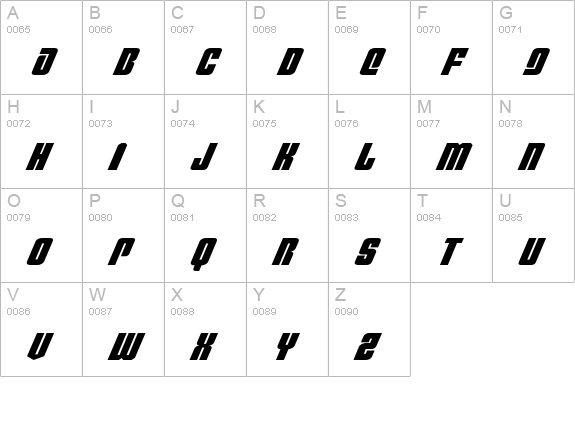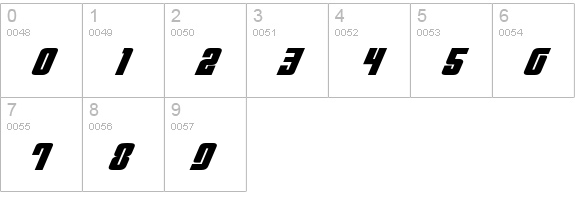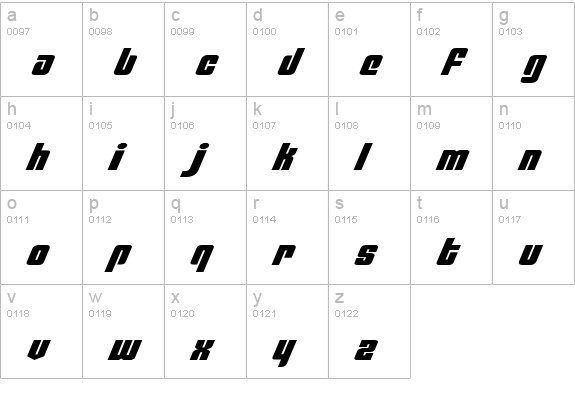
Philadelphia Exp Italic Font Details
Philadelphia Exp Italic is a distinctive, italic variant in the Philadelphia typeface family \xE2\x80\x94 well suited to design and typography projects.
Philadelphia Exp Italic is a visually stunning font that effortlessly combines elegance and modernity. With its sleek and sophisticated curves, this font exudes a sense of professionalism and creativity. The italic slant adds a touch of dynamism, making it perfect for conveying a sense of movement and energy. One of the best things about Philadelphia Exp Italic is that it is available for free download at FontsMarket.com. This means that anyone can access this incredible font without having to break the bank. Whether you are a professional designer, a student working on a project, or simply someone with a passion for typography, the accessibility of this font makes it a must-have in your font library. The versatility of Philadelphia Exp Italic is truly remarkable. It can be used in a wide range of design projects, from branding and logo designs to website headers and social media graphics. Its clean and legible appearance ensures that your message will be conveyed effectively, while its unique style adds a touch of personality and flair. The attention to detail in Philadelphia Exp Italic is truly exceptional. Every letter has been meticulously crafted to ensure a seamless flow and a harmonious balance. The result is a font that is not only visually appealing but also highly readable, making it suitable for both print and digital mediums. Whether you are a seasoned designer looking to add a fresh and unique font to your collection or a novice seeking to elevate your design projects, Philadelphia Exp Italic is the perfect choice. Its stunning aesthetics, versatility, and most importantly, its availability as a free download at FontsMarket.com, make it a font that is truly worth exploring. So, why wait? Download Philadelphia Exp Italic today and unleash your creativity like never before.